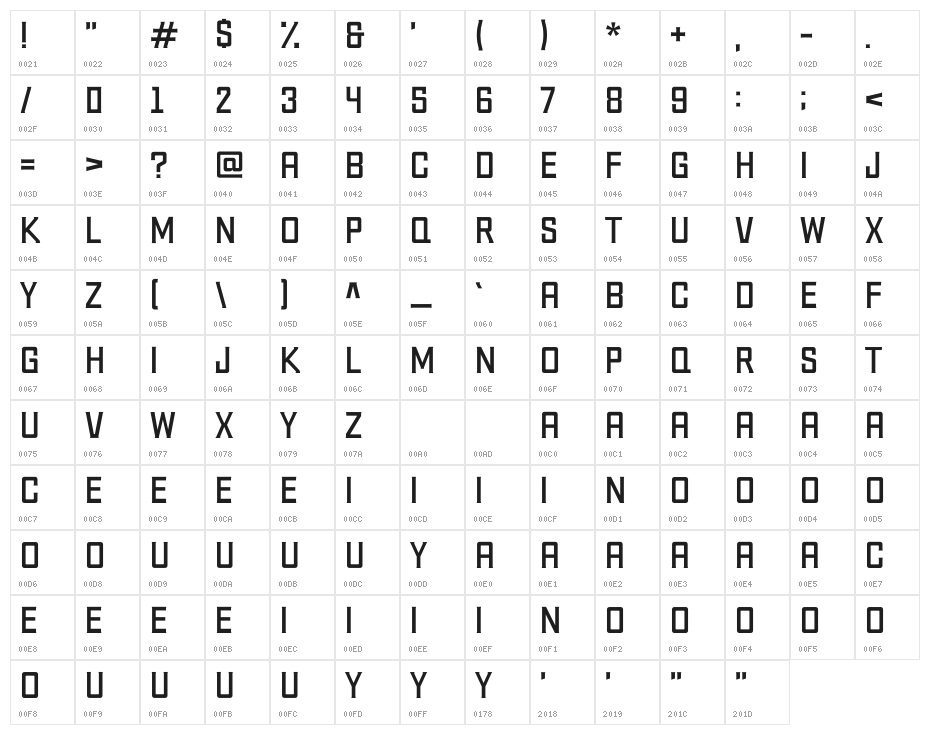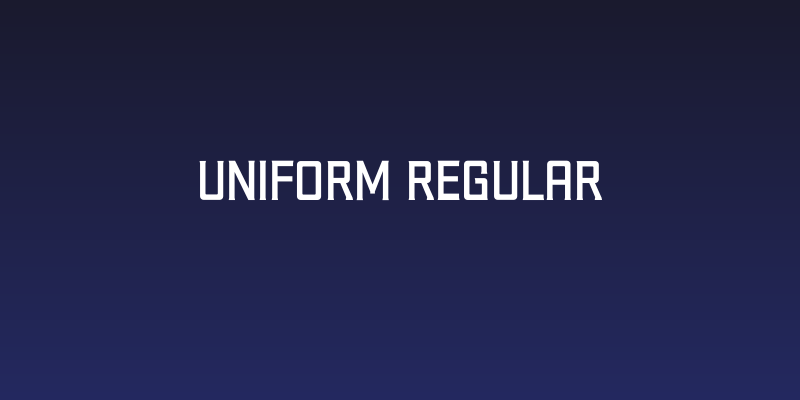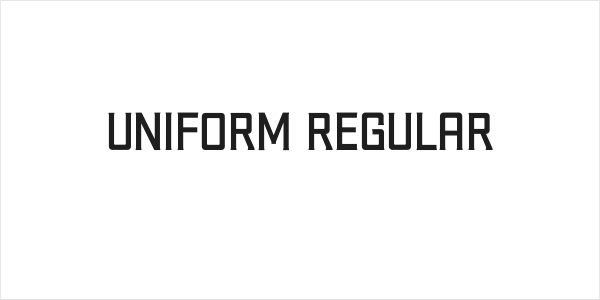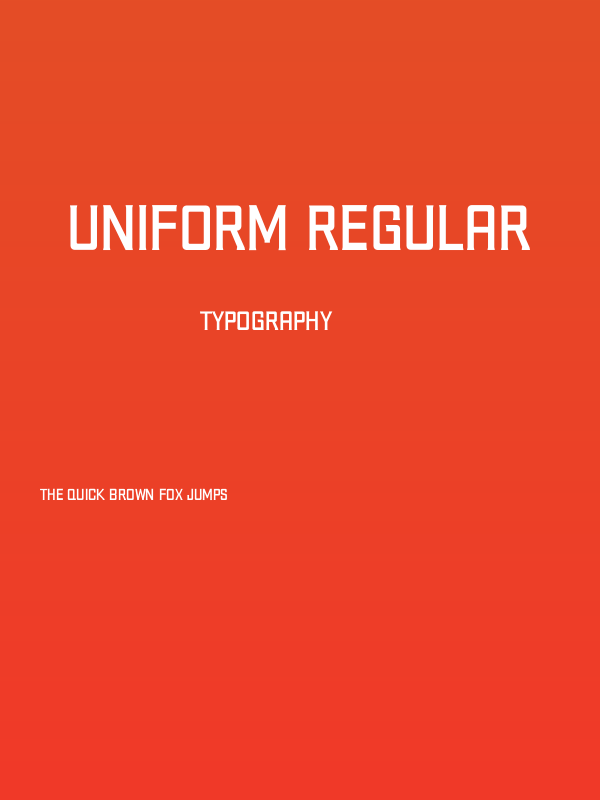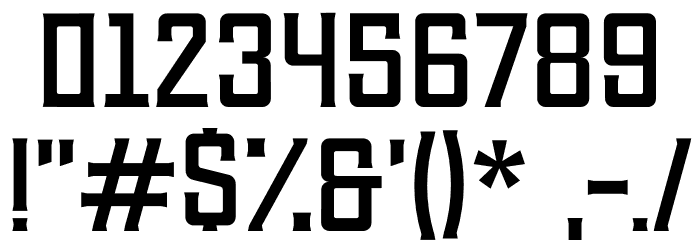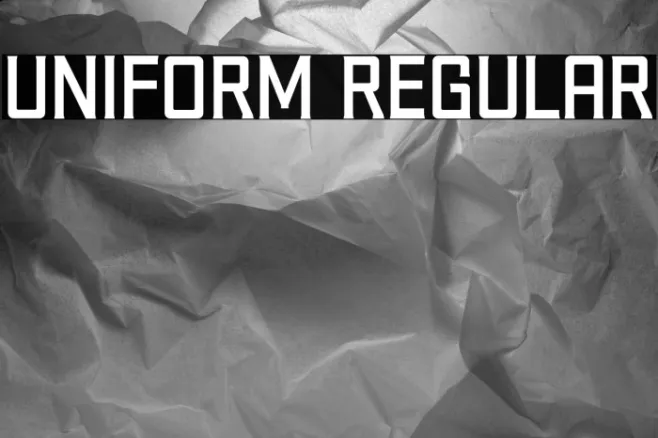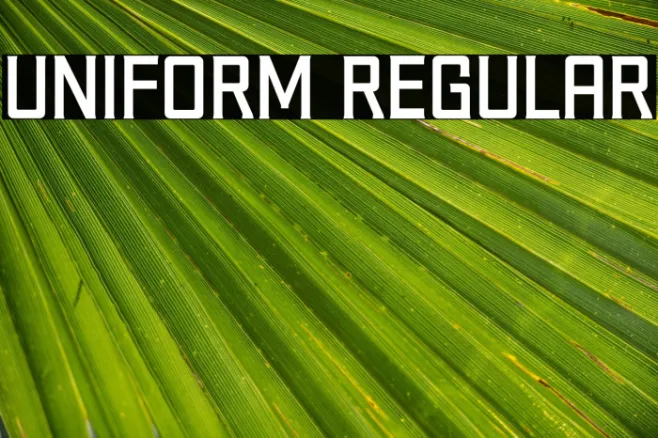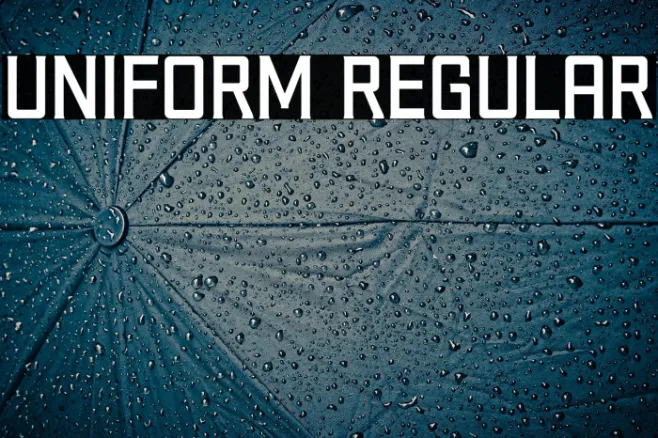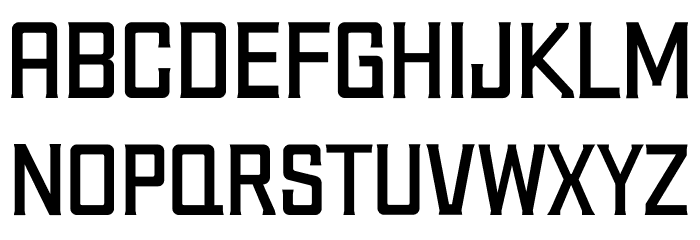
Uniform Regular Font
Uniform Regular Description
This font features a bold, geometric design with a modern and structured appearance. The characters are uniform in width, giving it a monospaced feel, though it is not strictly monospaced. The uppercase letters exhibit a strong, industrial aesthetic, with sharp angles and clean lines. The numbers and special characters maintain this consistency, ensuring a cohesive look across all elements. The font's design is both functional and stylish, making it suitable for a variety of applications where clarity and impact are essential.
| Use Case | Headlines, Logos, Signage |
| Proposed Projects | Ideal for branding, signage, posters, and digital interfaces where a strong, modern look is desired. |